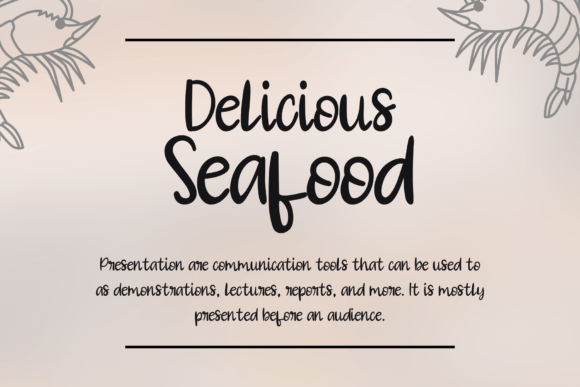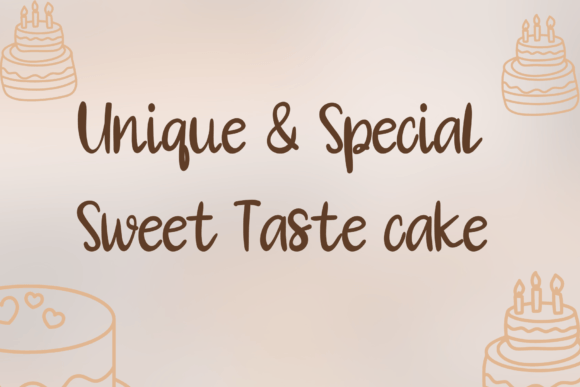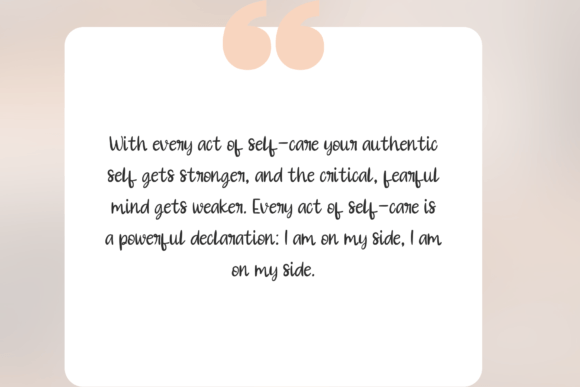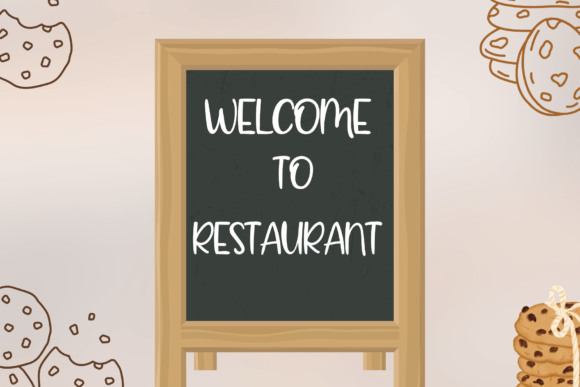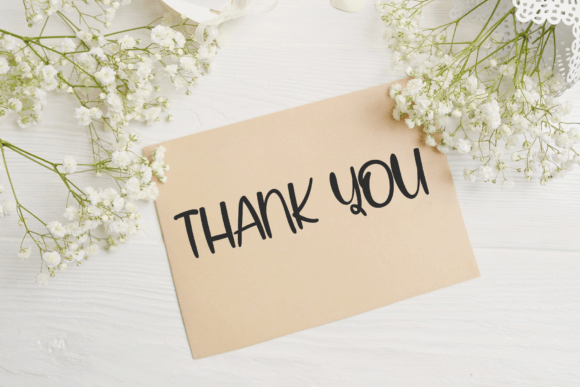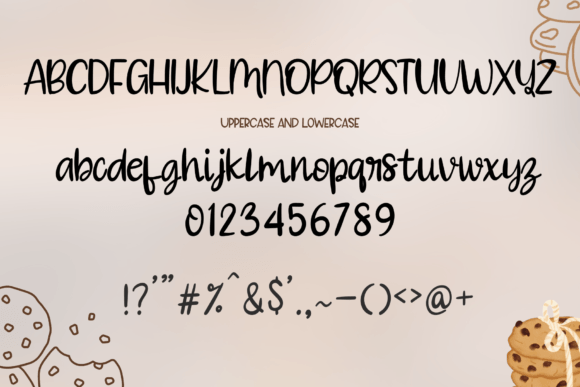
The Perfect Recipe for Design Success
As designers, we’ve all been there – staring at a blank canvas, desperately searching for the perfect combination of style and elegance to bring our vision to life. It’s that moment of pure creative bliss when everything falls into place, and our design is transformed from ordinary to extraordinary.
Enter the Brown Cookies Font, a delightful handwritten font that adds a touch of warmth and sophistication to any design project. Whether you’re crafting a logo, wedding design, or social media post, this font is the perfect accompaniment to elevate your creations. Its friendly and approachable nature makes it an invaluable asset for designers looking to add a personal touch to their work.
Brown Cookies Font Key Features
- Font Family: Brown Cookies is a unique, hand-drawn font with a warm and inviting aesthetic.
- Unique Characteristics: Features a distinctive, hand-painted look with subtle texture and imperfections, giving it a personal touch.
- Font Styles: Includes regular, bold, italic, and bold-italic styles for added versatility and flexibility.
Review of “Brown Cookies Font”
Overall, I’d say that “Brown Cookies Font” has some great qualities that make it a decent choice for designers, but it’s not without its limitations. Let’s dive in and see what I mean!
- Playful and whimsical feel: The font has a nice, casual vibe that’s perfect for designs that need a bit of personality.
- Good for desserts and food: The name “Brown Cookies Font” is a dead giveaway, but it’s actually a great choice for designs related to baked goods and other treats.
- Variety of weights: The font comes in a range of weights, from light to bold, which gives designers plenty of options for creating visually appealing text.
- Limited legibility: At smaller font sizes, the text can become a bit hard to read, which may be a problem for designs that require clear, easy-to-read text.
- Lack of sophistication: While the font is playful and fun, it may not be the best choice for more formal or professional designs.
“Brown Cookies Font” is a solid choice for designers who need a fun, casual font for their designs. While it may not be the most sophisticated or legible font out there, it’s a great option for designs that need a bit of personality. Just be sure to use it wisely and pair it with clear, easy-to-read text for the best results.
Use the Brown Cookies font to add a unique and playful touch to your designs. Pair it with bold colors and creative graphics to create a visually appealing effect.
The Brown Cookies font is ideal for:
- Whimsical and playful marketing campaigns
Alternatives to Brown Cookies Font for Designers
Great Vibes Font is a beautiful, elegant script font ideal for use in wedding invitations, quotes, and other creative projects. It is more refined and sophisticated compared to Brown Cookies Font, making it suitable for high-end designs. Great Vibes Font features swashes and connecting strokes, adding a touch of personality to your designs.
Pacifico Font is a modern, elegant script font perfect for use in branding, logos, and advertising. It is more minimalist and clean compared to Brown Cookies Font, making it ideal for designs where simplicity is key. Pacifico Font features a relaxed, casual feel that works well in a variety of contexts.
Dancing Script Font is a playful, elegant script font ideal for use in creative projects, such as posters, flyers, and social media graphics. It is more whimsical and fun compared to Brown Cookies Font, making it suitable for designs that require a lighthearted tone. Dancing Script Font features a flowing, handwritten feel that adds a touch of personality to your designs.